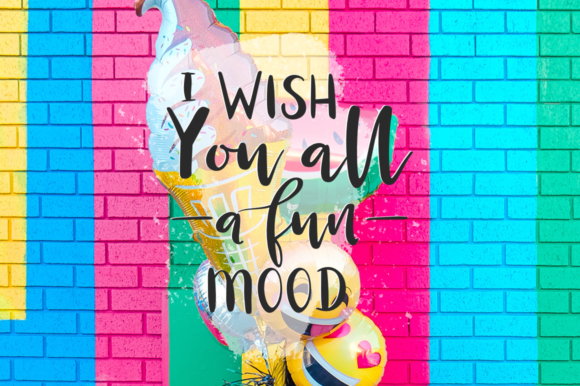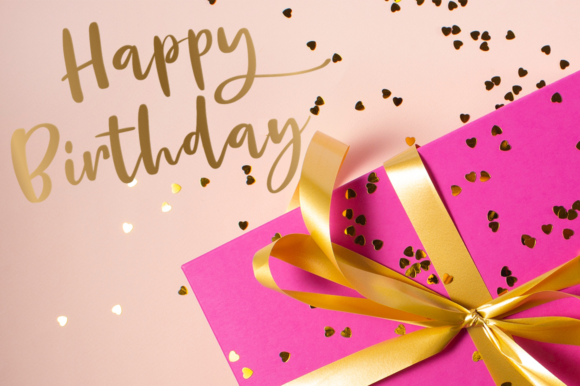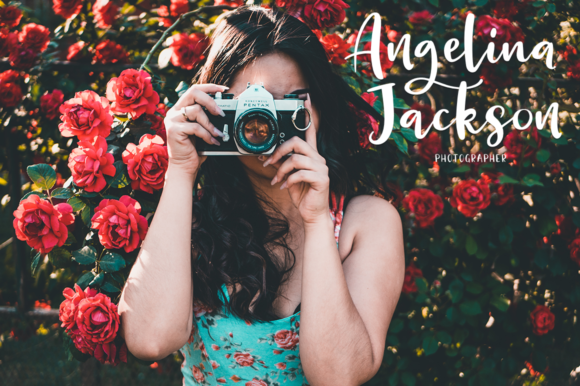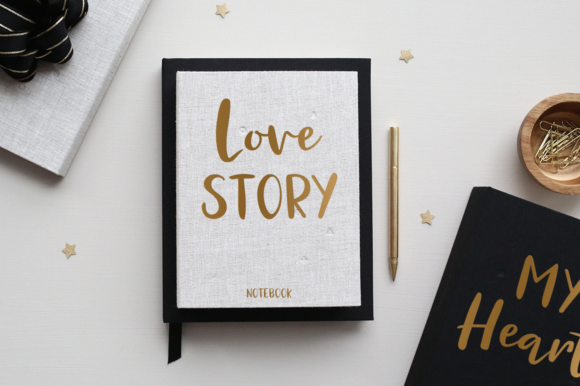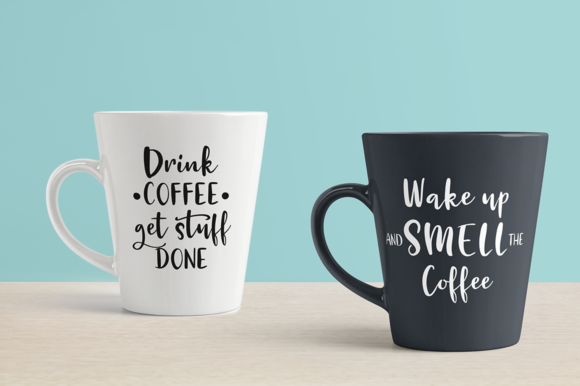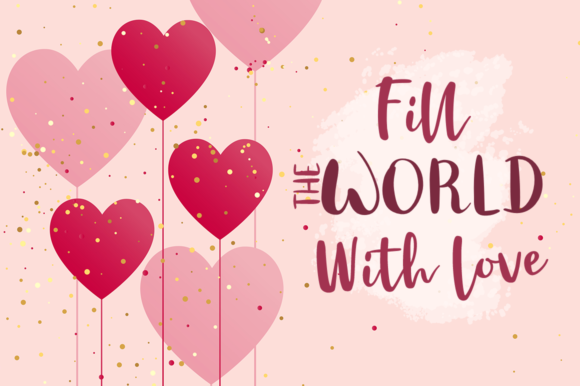
Adding a Spark of Magic to Your Designs
Have you ever sat at your desk, surrounded by scribbled notes and scattered ideas, and suddenly felt the urge to create something truly special? A spark of inspiration ignites within you, and you can’t wait to bring your vision to life. This is the moment when the right font can make all the difference. Introducing the Bright Confetti Font, a fun and adorable handwritten font designed to add a touch of whimsy to any creative project.
Whether you’re a seasoned designer or a budding artist, the Bright Confetti Font is a valuable addition to your toolkit. Its playful, cursive style is perfect for adding a personal touch to invitations, social media graphics, or even children’s book illustrations. With its versatility and charm, this font is sure to become a go-to choice for designers looking to add a little magic to their work.
Bright Confetti Font Key Features
- Unique Characteristics: Bright Confetti Font features a playful, hand-drawn design with bold lines and vibrant colors, making it perfect for creating eye-catching and festive designs.
- Script and Ligatures: The font includes a range of script and ligature styles, allowing designers to add a personal touch to their work.
Bright Confetti Font Review
Overall, I found the Bright Confetti Font to be a fun and playful addition to any design project. ✨ The font’s unique combination of bold lines and rounded edges creates a sense of energy and vibrancy that’s perfect for celebrations and events.
Some of the things that I like about this font include:
- Its high level of customizability, allowing designers to adjust the font’s size, color, and spacing to suit their needs
- The wide range of font styles and variations available, from bold to light, to add depth and interest to designs
- Its seamless integration with other design elements, making it easy to create cohesive and visually appealing layouts
- ⚠️ The font may not be suitable for formal or professional designs, as its playful nature may come across as unprofessional
- ⚠️ The font’s high level of detail can make it difficult to read at small font sizes or in low-resolution environments
Overall, I would recommend the Bright Confetti Font for designers looking to add a touch of whimsy and fun to their projects. With its high level of customizability and wide range of font styles, it’s a versatile tool that can be used in a variety of contexts.
Tips for Getting the Most Out of Bright Confetti Font
1. Use Bright Confetti Font for eye-catching titles and headings.
2. Pair Bright Confetti Font with a clean, simple font for body text.
3. Experiment with different font sizes and colors to create visual interest.
1. Party invitations and decorations.
2. Social media graphics and ads.
3. Branding and marketing materials.
Alternatives to Bright Confetti Font
Great Vibes is a beautiful, handwritten font that is perfect for adding a touch of elegance and sophistication to your designs. It is ideal for use in titles, headings, and quotes where a more personal and expressive feel is desired.
Compared to Bright Confetti Font, Great Vibes has a more refined and polished look, making it suitable for a wider range of design projects. While Bright Confetti Font is more playful and energetic, Great Vibes is more refined and sophisticated.